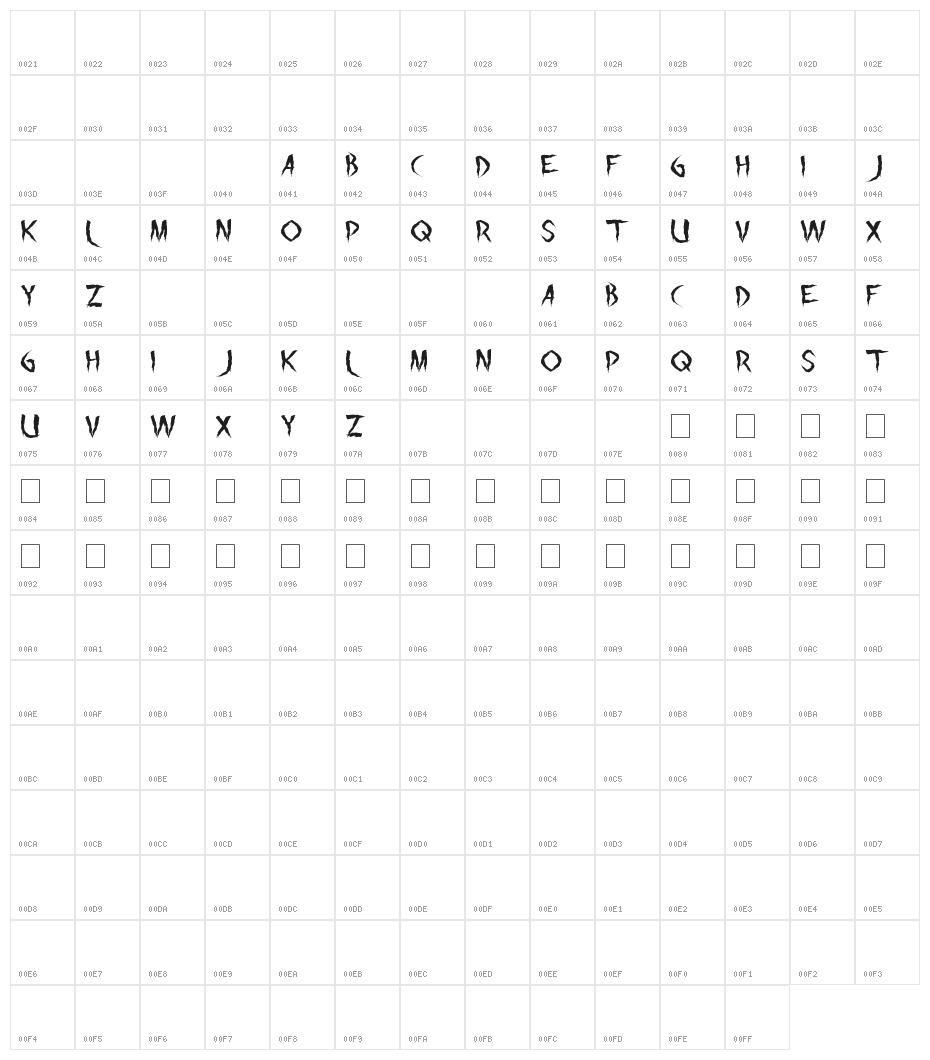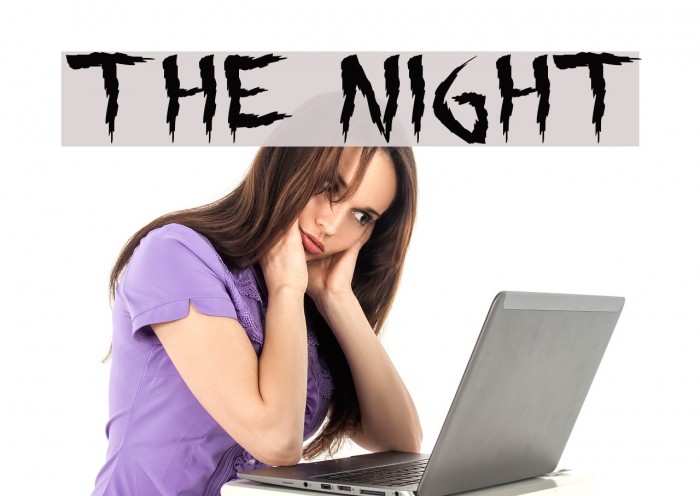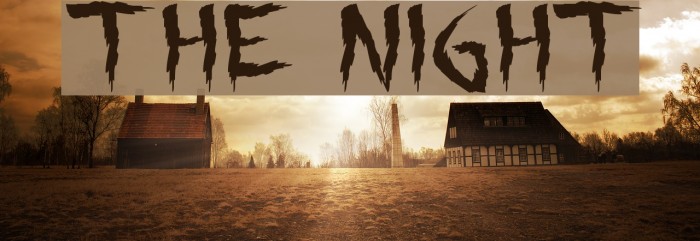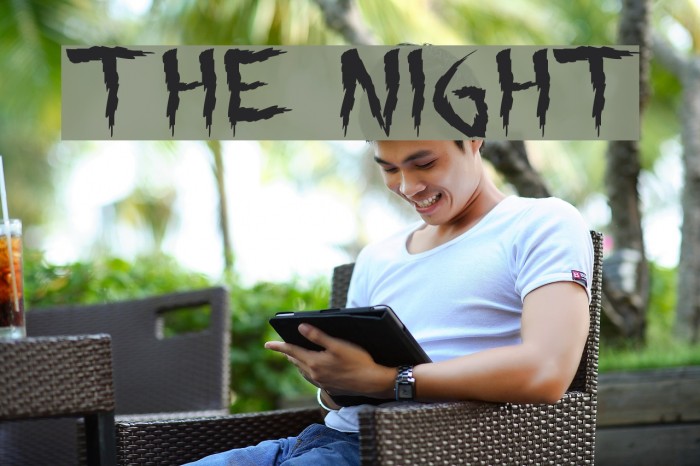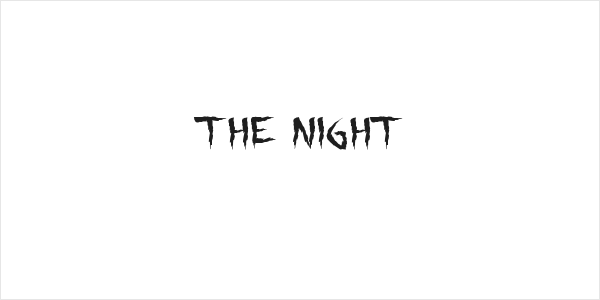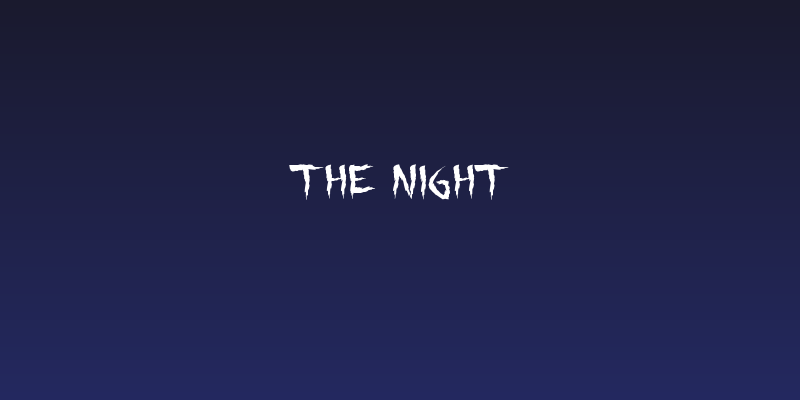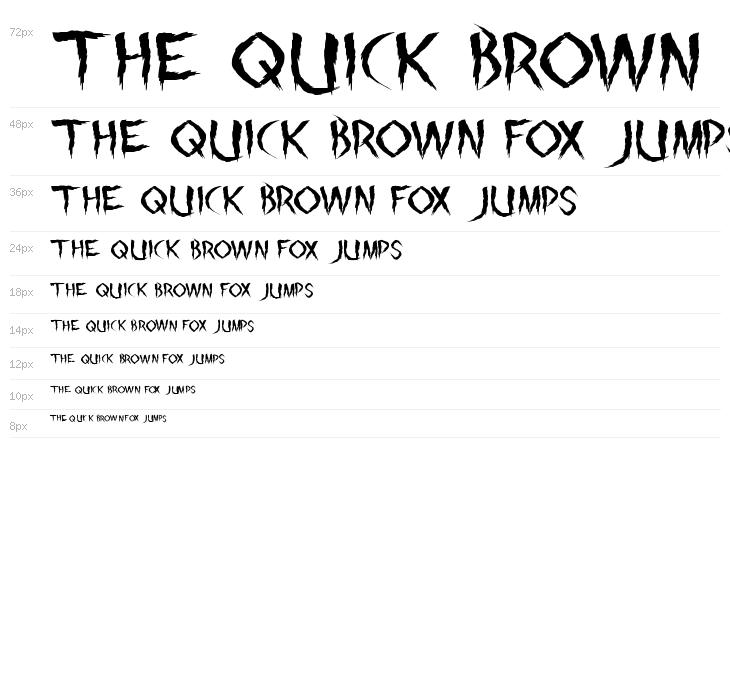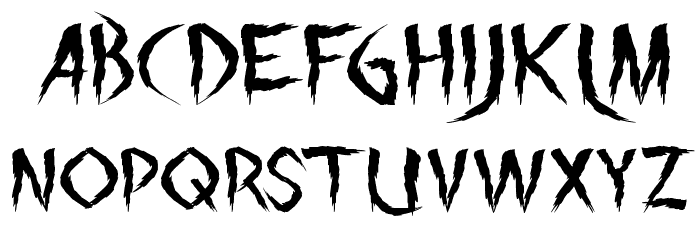
the night Font
the night Description
This font features a jagged, edgy design that evokes a sense of mystery and intensity. The characters are sharply pointed and irregular, resembling claw marks or torn paper, which gives it a dramatic and somewhat eerie appearance. The uppercase letters are bold and striking, with a consistent height that maintains readability despite the chaotic style. The font's unique aesthetic makes it ideal for projects that require a sense of suspense or horror, such as Halloween-themed designs or thriller movie posters. Its distinctiveness ensures that it captures attention and conveys a strong visual impact.
| Proposed Projects | Ideal for Halloween designs, horror movie posters, and suspenseful book covers. |